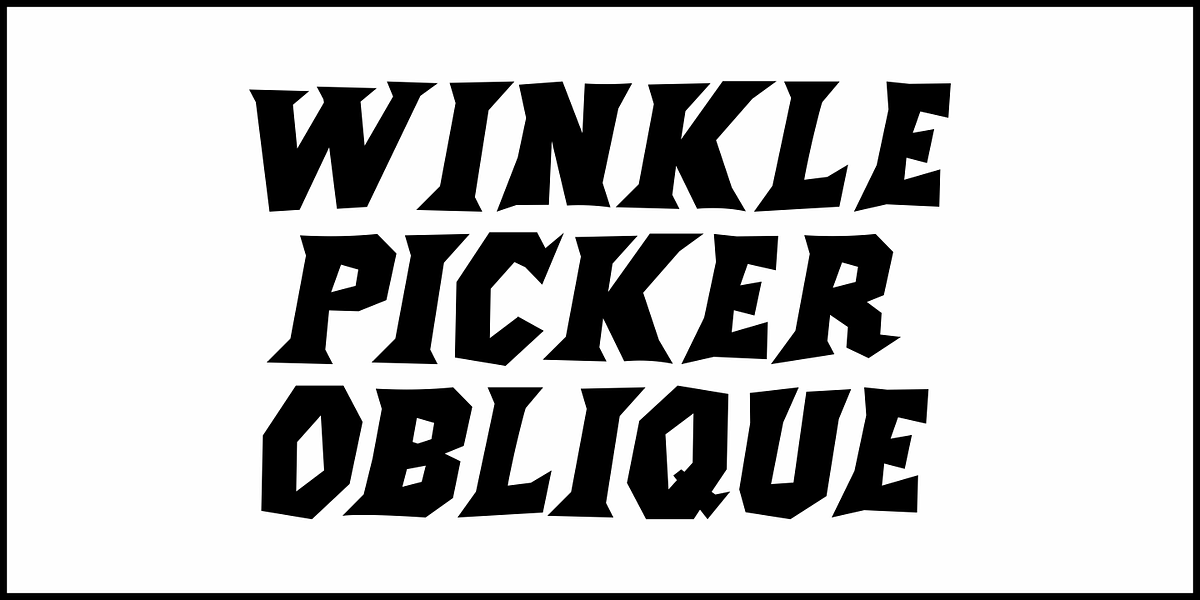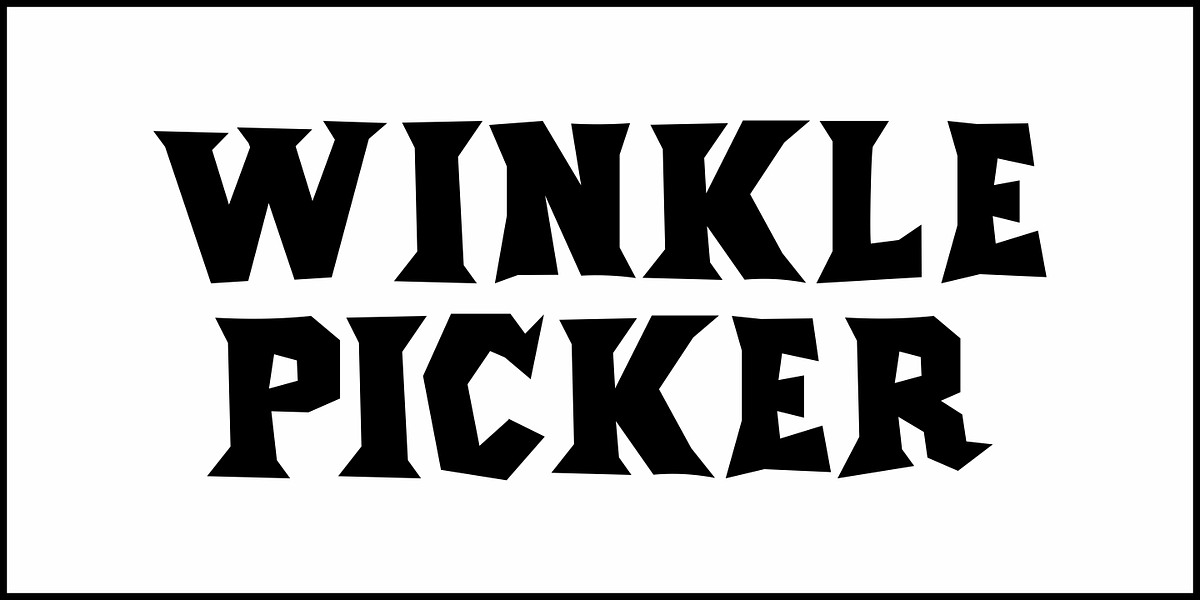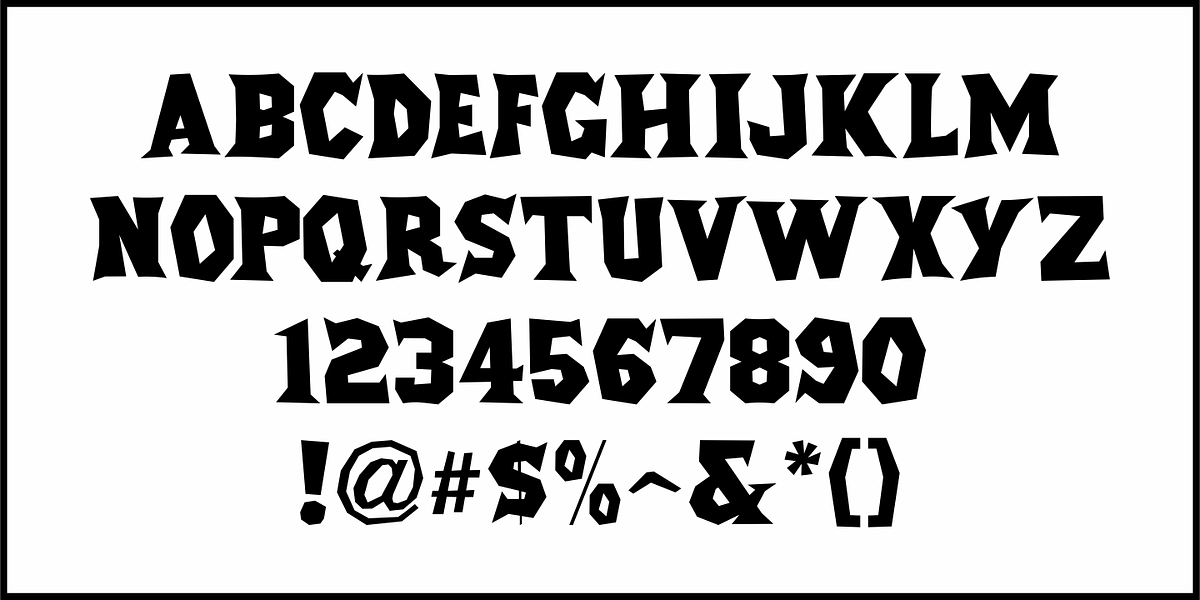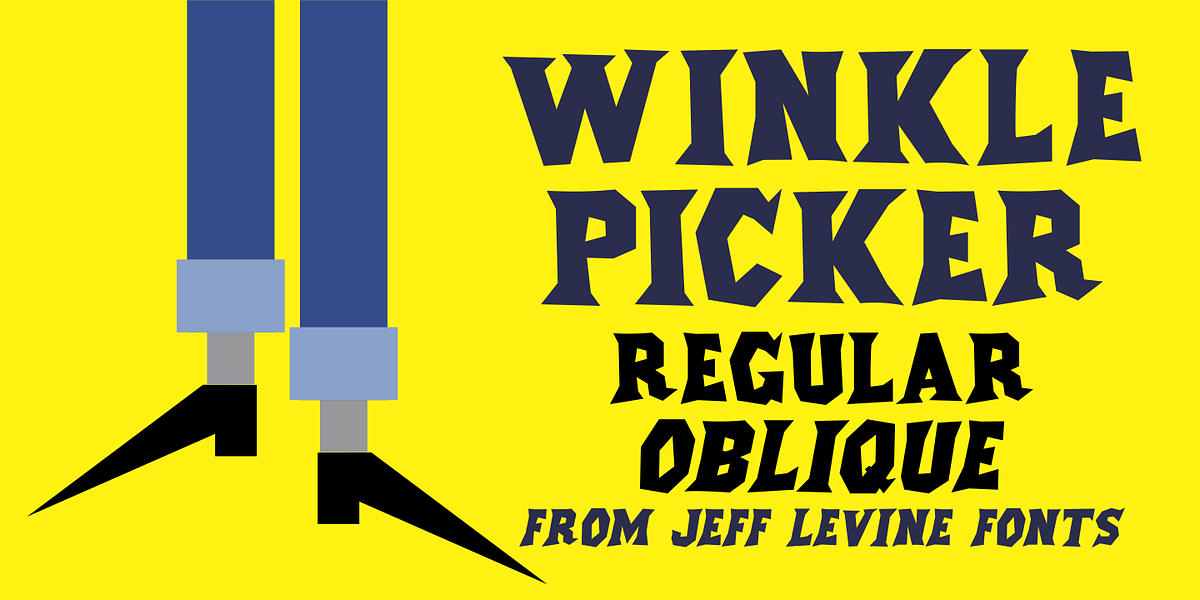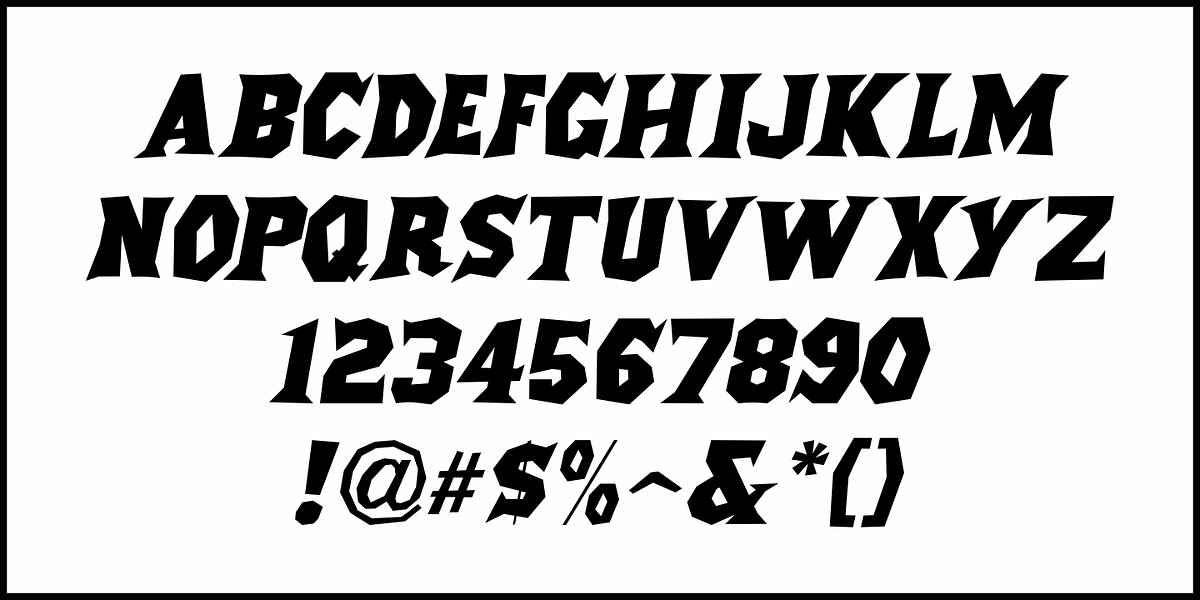
Winkle Picker JNL
A 1963 movie poster for an Italian documentary called “Sexy Nudo” had its title lettering in a free form spur serif design reminiscent of cut paper. This inspired Winkle Picker JNL, which is available in both regular and oblique versions.
Despite the subject matter of the film documentary, the lettering on the poster is fun and playful, which meant the digital font deserved a fun name as well. It was named for a shoes and boots with sharp and long pointed toes which first gained popularity in the 1950s.